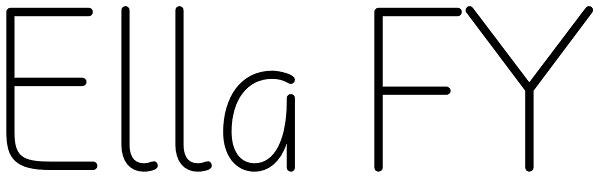
Ella FY
With its 3 weights and 144 alternates, this display script offers many possibilities to set original layouts. From basic character set to flourishing ascendant and descendant alternates, Ella FY will give life to your designs.